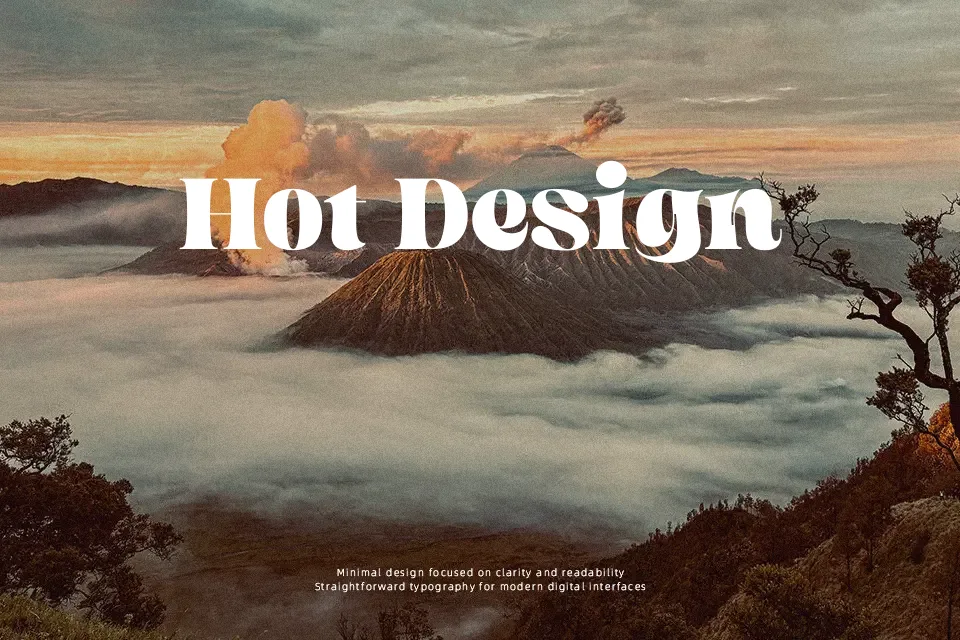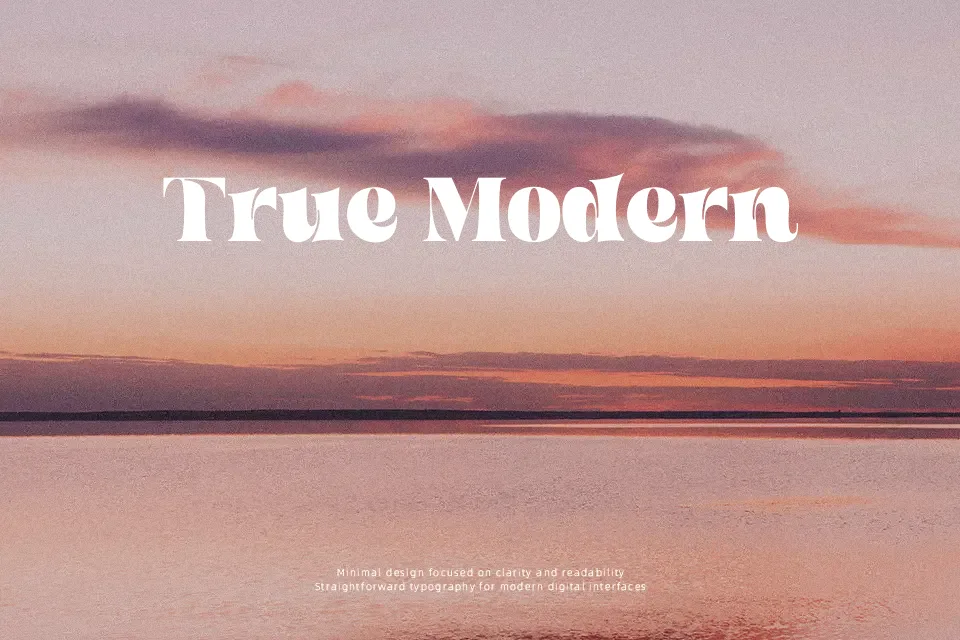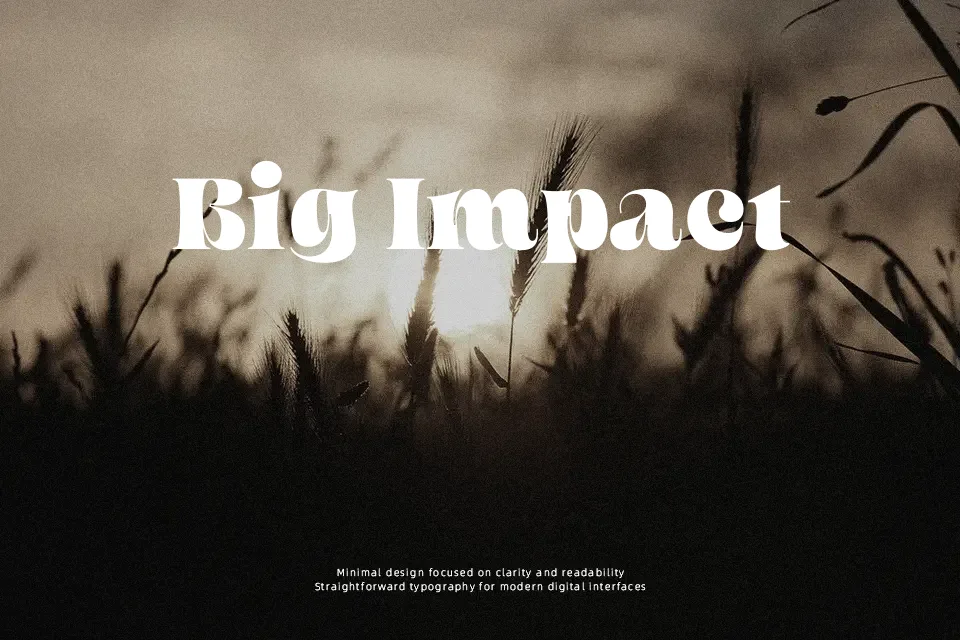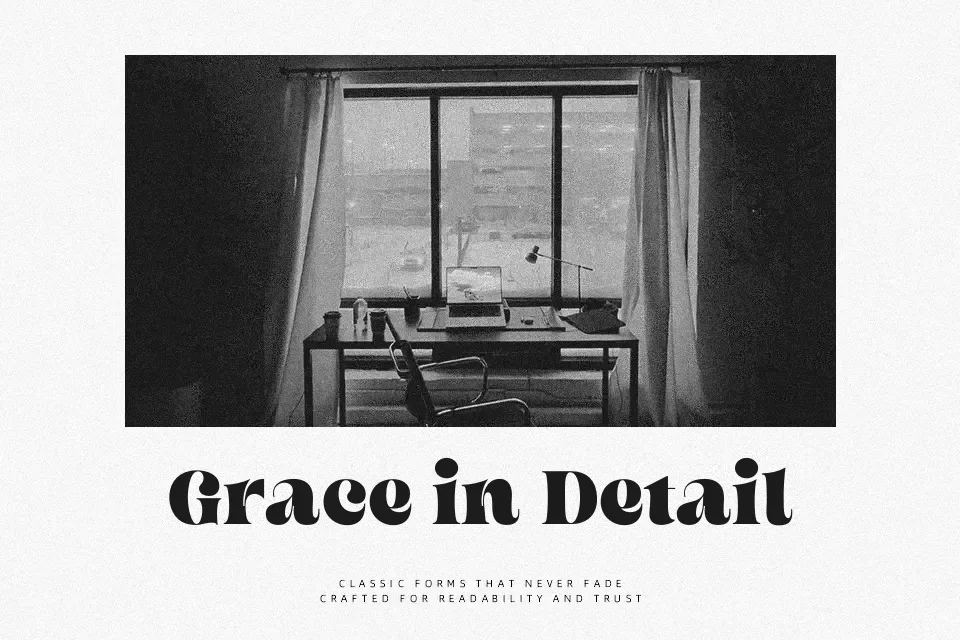
Begild Font
There’s an unmistakable 70s-inflected energy to Begild — thick strokes flare into sharp, decorative serifs while the overall weight stays assertive without tipping into heavy. The letterforms carry a slight condensed tension, lending structure to display settings without feeling overcrowded. It handles headline-scale well: magazine covers, packaging headers, and logotype treatments where character counts stay short. The ornate detailing also makes it a reasonable pick for retro-themed event invitations or branded merchandise. That said, the decorative complexity hurts legibility at small sizes, making it unsuitable for body copy or any context where dense text runs are needed. It ships as a personal-use freebie, so commercial projects require a paid license — a step some designers may overlook if they grab it from aggregator sites.
Best For:- Retro-themed brand logo lockups
– Magazine or editorial display headers
– Product packaging accent text
– Groovy event poster titles
Not Ideal For:- Body copy or long-form text blocks
– Minimalist or corporate identity systems
– Small-size UI labels or navigation text
Perfect for branding, editorial, and headline, with a bold and decorative style.